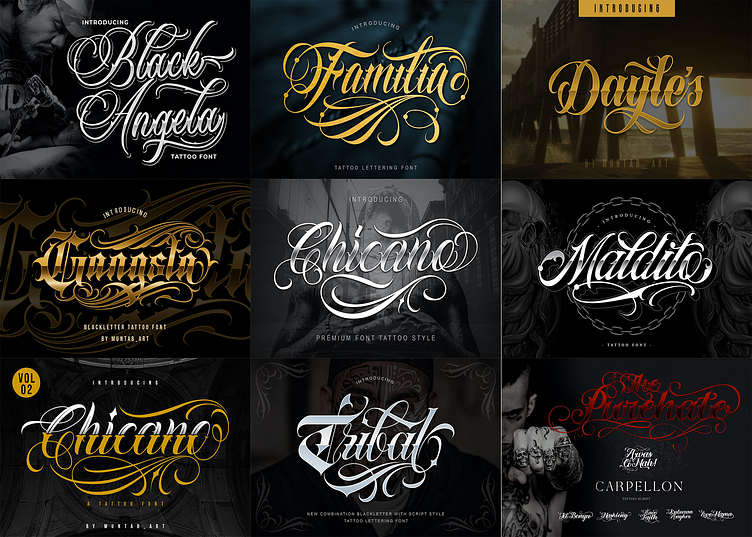
100+ Premium Tattoo Font Bundle, Custom tattoos design,Logo Font
Our 100 Premium Tattoo Fonts Bundle, your one-stop resource for unique branding, artistic logo design, and tattoo designs. Improve your creativity with a wide range of blackletter Gothic style fonts that convey a timeless air of sophistication. This bundle's beautifully made fonts have been strategically selected to give you countless options for your demands in terms of tattoo design, logo development, and product labeling. Our bundle offers the ideal choice whether you're a tattoo artist looking to add richness to your designs, a designer hoping to add refinement to your logos, or a brand owner searching for distinctive product labeling. With the 100 Premium Tattoo Font Bundle, you can unleash your creativity and embrace the magic of typography. Your identity, your ink, and your imagination were all magnificently transformed.